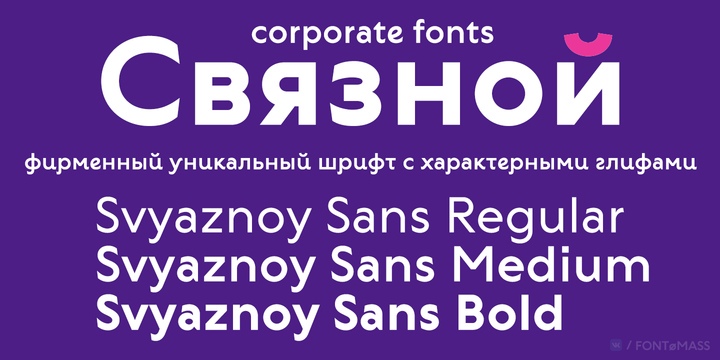
Svyaznoy Sans Font
Svyaznoy Sans Font is perfect for telecommunications company branding, mobile network marketing, digital connectivity solutions, tech startup identities, communication service packaging, wireless technology signage, modern corporate presentations, and innovative digital platform interfaces. This connected typeface excels in applications where technological connectivity and communication efficiency are essential for creating trustworthy and modern brand experiences.
What makes Svyaznoy Sans Font truly exciting is its seamless embodiment of digital connectivity and communication excellence that captures the essence of modern telecommunications and network reliability. The font features clean, interconnected letterforms with subtle technological details and systematic proportions that mirror the precision of digital networks and seamless data transmission. Its connected personality and efficient character create an immediate sense of reliability and technological sophistication that resonates with audiences seeking dependable communication solutions and cutting-edge connectivity services. The typeface's networked appeal and digital precision make it perfect for brands wanting to convey connectivity, innovation, and connection to the interconnected world of modern telecommunications.
The Svyaznoy Sans Font family includes multiple weights from Light to Bold, complemented by condensed versions that enhance its technical versatility. The font offers comprehensive character sets with technological symbols, network indicators, and digital styling details that enhance its connectivity aesthetic. Additional graphic elements including connection points, signal waves, network patterns, and communication motifs provide designers with complete branding tools rooted in telecommunications and digital connectivity themes.
For designers seeking a modern connectivity-focused typeface, Svyaznoy Sans Font Free Download represents an exceptional choice that brings digital reliability to contemporary brand communications. Whether you're developing identities for telecommunications companies, designing materials for tech service providers, or creating marketing campaigns for digital connectivity solutions, this font delivers the technological credibility that appeals to connected consumers and digital-first audiences. Its networked character and communication appeal make it particularly effective for brands in telecommunications, technology, and digital services industries. The font's ability to convey reliability, innovation, and seamless connectivity makes it an invaluable asset for creating brand communications that celebrate digital transformation, communication excellence, and the empowering benefits of staying connected in our increasingly networked global society.